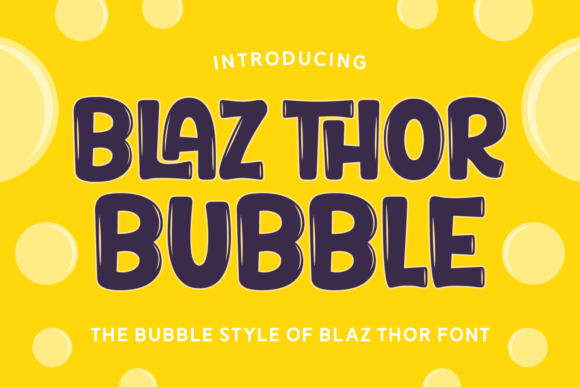
The Perfect Blend of Vintage Charm and Modern Flair: Blaz Thor Bubble Font
Enter the Blaz Thor Bubble Font, a stunning display font that’s sure to make a statement. With its cool, thick letters and vintage charm, this font is the perfect addition to any design. And with its PUA encoding, accessing all the glyphs and swashes is a breeze, giving you the freedom to get creative and experiment with different looks. Whether you’re a seasoned pro or just starting out, the Blaz Thor Bubble Font is an invaluable asset to have in your design toolkit.
Blaz Thor Bubble Font Key Features
- Font Type: Display Font, specifically designed for creating a futuristic and playful atmosphere.
- Unique Characteristics: The font features a distinctive bubble-like design with rounded shapes and smooth curves, perfect for creating a whimsical and eye-catching visual effect.
Blaz Thor Bubble Font Review
Overall, I think the Blaz Thor Bubble Font is a unique and visually appealing font that can add a touch of whimsy to your designs. Here are some things that I think work well:
- ✨ The playful, bubbly feel of the font makes it perfect for designs that need a bit of personality.
However, there are a few limitations that I think are worth mentioning:
- ⚠️ The font can be a bit difficult to read in smaller sizes, which may limit its use in certain applications.
- ⚠️ The font may not be suitable for use in formal or professional settings, as it can come across as a bit too playful.
Overall, I think the Blaz Thor Bubble Font is a fun and creative addition to any design toolbox. While it may have some limitations, it’s a great option for designers who want to add a bit of personality to their work.
The Blaz Thor Bubble Font is perfect for creating playful and eye-catching designs. Some common use cases include:
- Marketing materials for fun and quirky businesses.
- Social media graphics and posts.
Remember to experiment with different font sizes, colors, and bubble shapes to get the most out of this unique font.